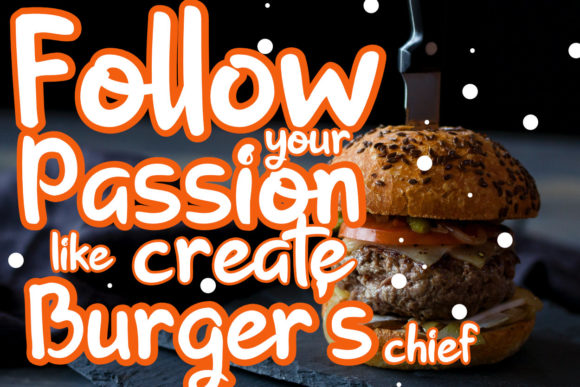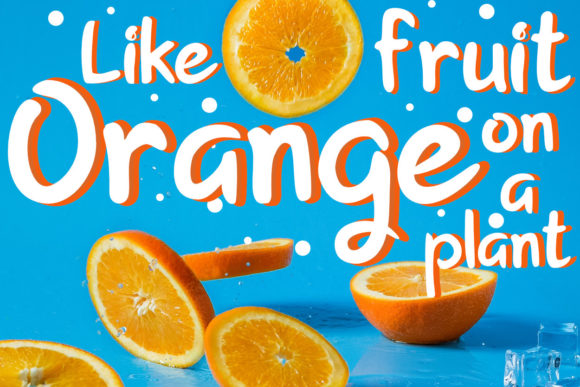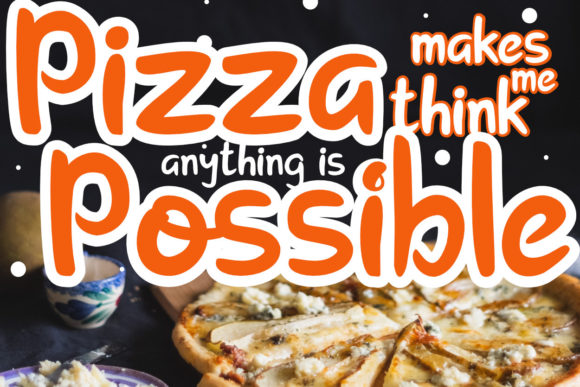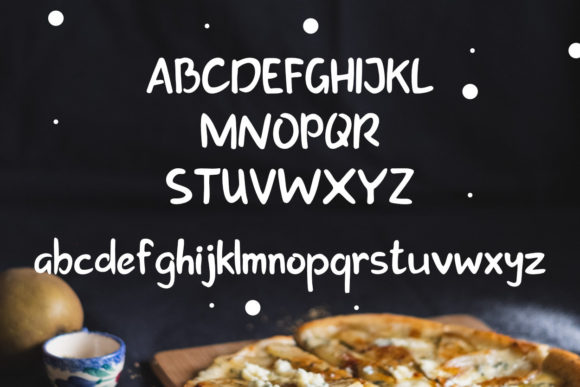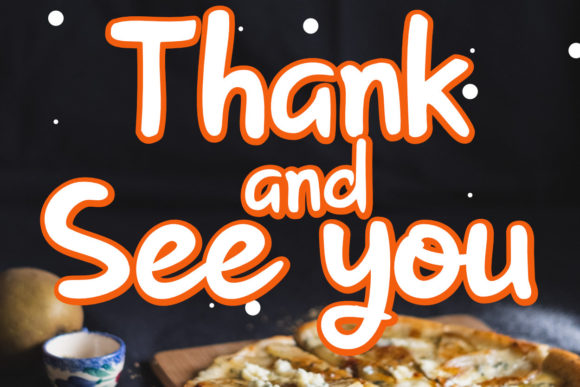
Introducing Creation Font: The Ultimate Handwritten Marvel
In the realm of typography, few fonts manage to strike a balance between elegance and approachability. Creation Font, however, is a shining exception. This fancy handwritten font has been meticulously crafted to win the hearts of designers and crafters alike. With its unique blend of casual charm and versatility, Creation Font is poised to become your go-to choice for a wide range of design projects.
The Making of a Timeless Font
Creation Font is more than just a typeface; it’s a masterpiece born out of a passion for beautiful handwriting. Every letter, every curve, and every stroke has been carefully handcrafted to ensure that the font exudes a sense of warmth and personality. The result is a font that feels wonderfully down-to-earth, making it instantly relatable and engaging.
One of the standout features of Creation Font is its incredible versatility. Whether you’re working on a bustling background or crafting a standalone headline, this font adapts seamlessly to any context. Its readability is exceptional, ensuring that your message is conveyed clearly and effectively, no matter the application.
For designers and crafters, finding the right font can often be a daunting task. Creation Font, however, ticks all the right boxes. Its unique character makes it perfect for:
- Branding and Packaging: Stand out with a font that adds a personal touch to your brand’s identity.
- Invitations and Announcements: Create beautiful, eye-catching invites that set the tone for any event.
- Web Design: Enhance your website’s aesthetic with a font that is both readable and visually appealing.
- Social Media Graphics: Elevate your social media presence with stunning graphics that capture attention.
Why Choose Creation Font?
With so many fonts available, why should Creation Font be your top pick? Here are a few compelling reasons:
- Unique Personality: In a sea of generic fonts, Creation Font stands out with its distinctive handwritten charm.
- High Readability: Ensure your message is understood clearly, even in the busiest of designs.
- Flexibility: Use it for anything from elegant headlines to friendly body text.
Tips for Using Creation Font
To get the most out of Creation Font, consider the following tips:
- Mix and Match: Combine Creation Font with other fonts for a layered look that adds depth to your design.
- Play with Colors: Experiment with different colors to find the perfect match that enhances the font’s natural charm.
- Adjust Size and Weight: Don’t be afraid to experiment with different sizes and weights to add emphasis and hierarchy to your text.
Creation Font is more than just a typeface; it’s a tool that can elevate your designs to new heights. Its unique blend of elegance, charm, and versatility makes it an indispensable asset for designers and crafters. Whether you’re looking to create stunning visuals, enhance your brand’s identity, or simply add a personal touch to your projects, Creation Font is the perfect choice. So why wait? Dive into the world of Creation Font today and discover a whole new realm of design possibilities!